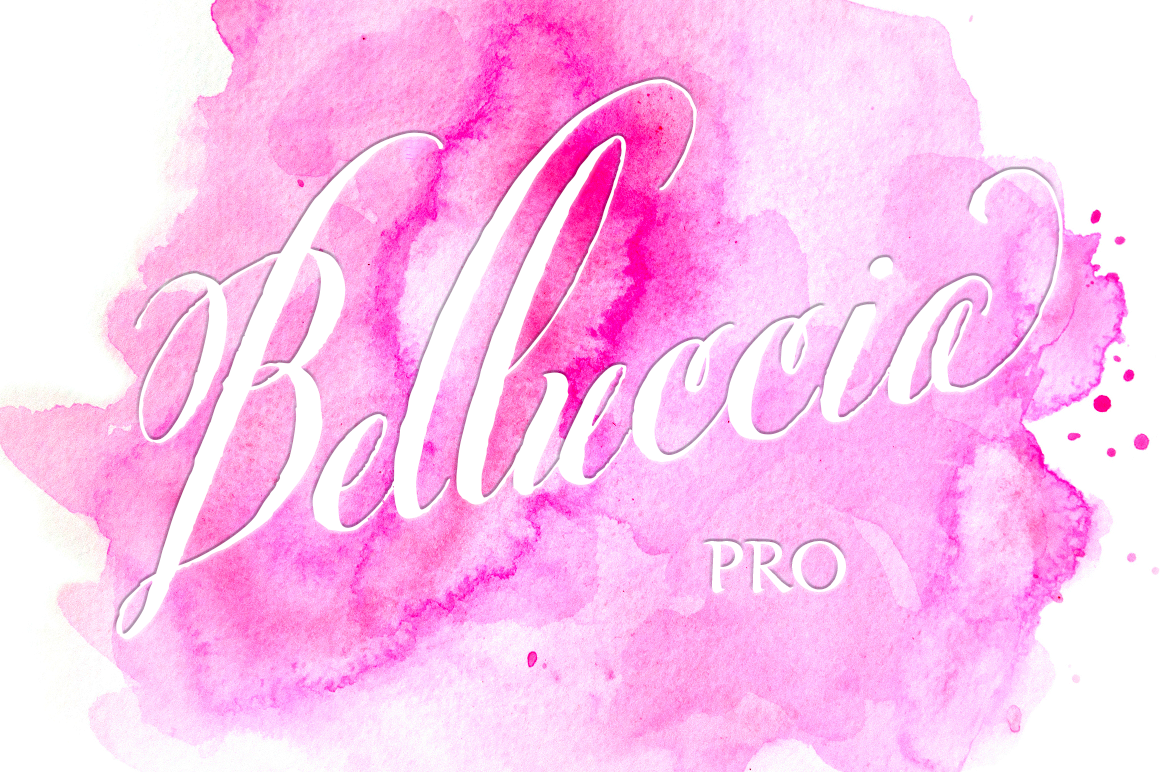
Belluccia Pro Font
Belluccia Pro Calligraphy Font has four fonts in one! Belluccia Regular, Belluccia Contextual, Belluccia Stylistic and Belluccia Swashes. So you can mix and match letters to create a custom look!
The Belluccia Font Family also contains Belluccia, Belluccia Bold, Belluccia Pro, plus Flourishes, Borders and Ornaments, which are sold separately and are available in this shop.